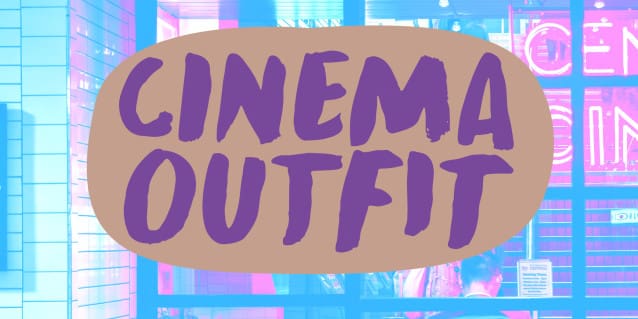
Cinema Outfit Font
Cinema Outfit Font by David Kerkhoff is a unique, expressive font created with ink and brush strokes. This messy yet charming typeface is perfect for adding a touch of creativity to your designs. CinemaOutfit includes extensive language support and a set of contextual alternates, making it versatile for various projects. Make your graphics stand out with the distinctive look of CinemaOutfit.